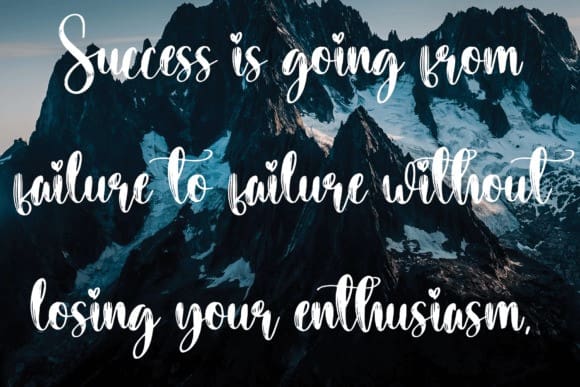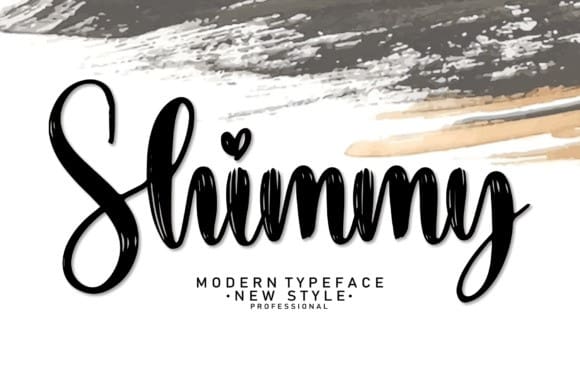
Shimmy Brush Font
Shimmy Brush Font, is a creative and modern handwritten font. You can successfully use this lovely typeface for wall displays, wedding invitations, social media post logos, advertisements, product packaging, product designs, labels, photography, watermarks, invitations, stationery, and any project that requires taste handwriting.